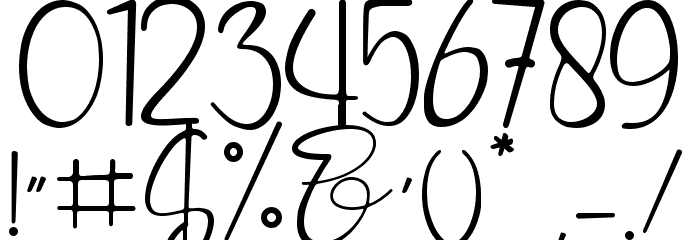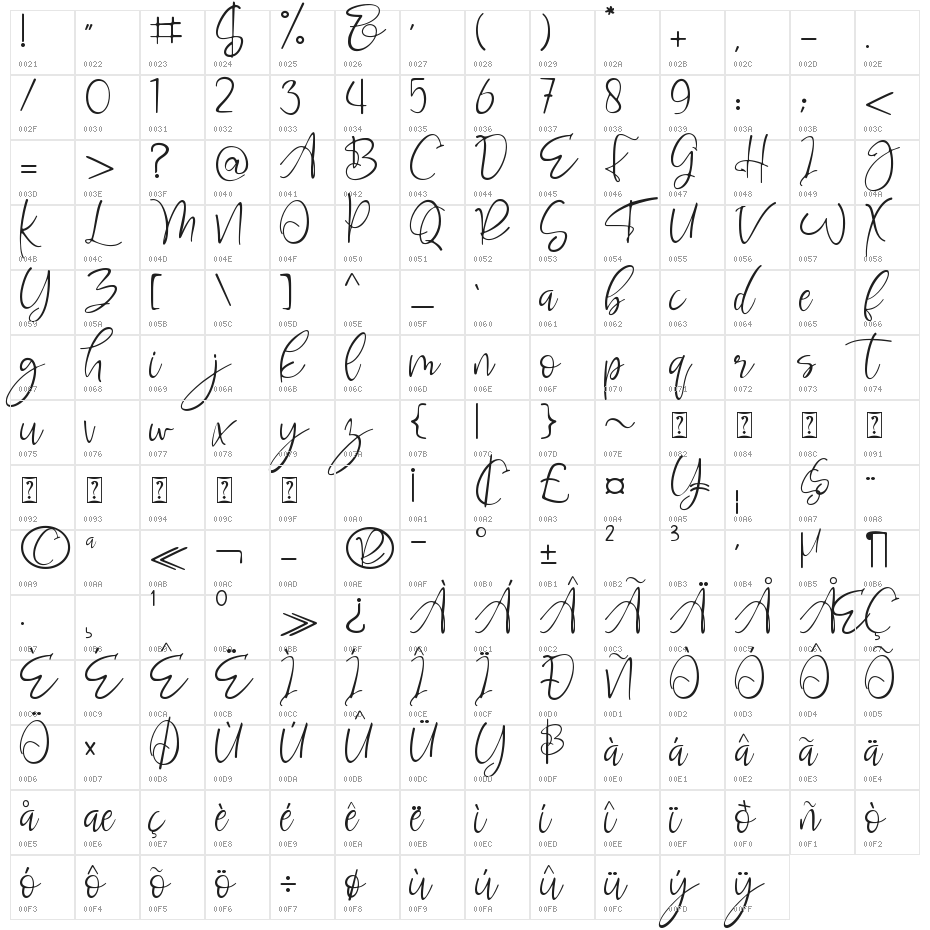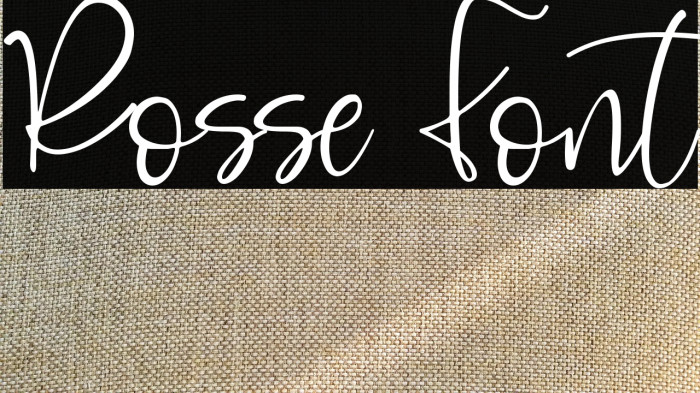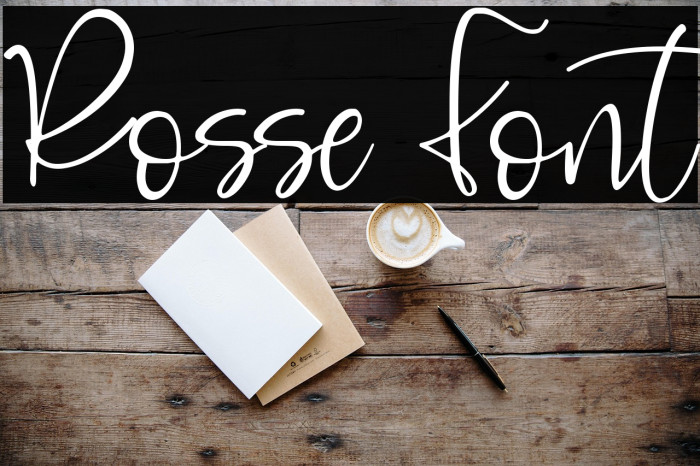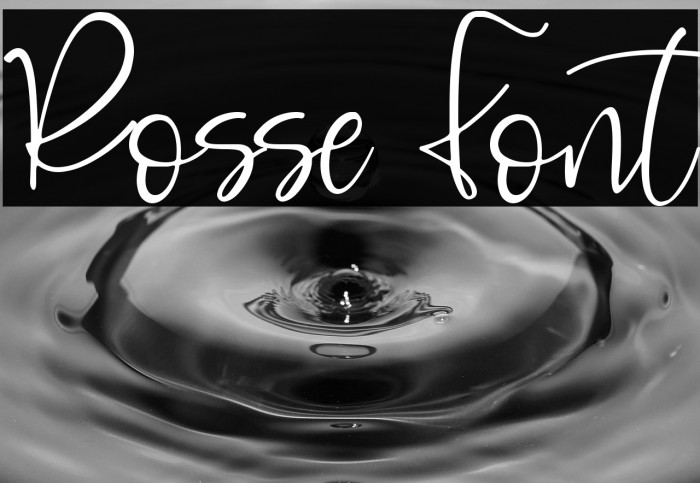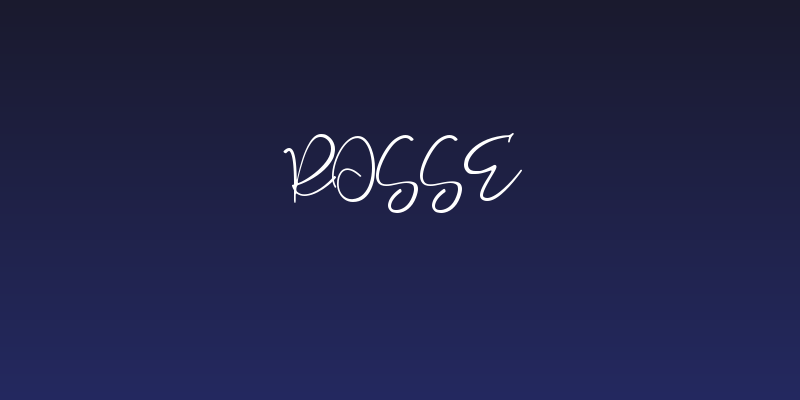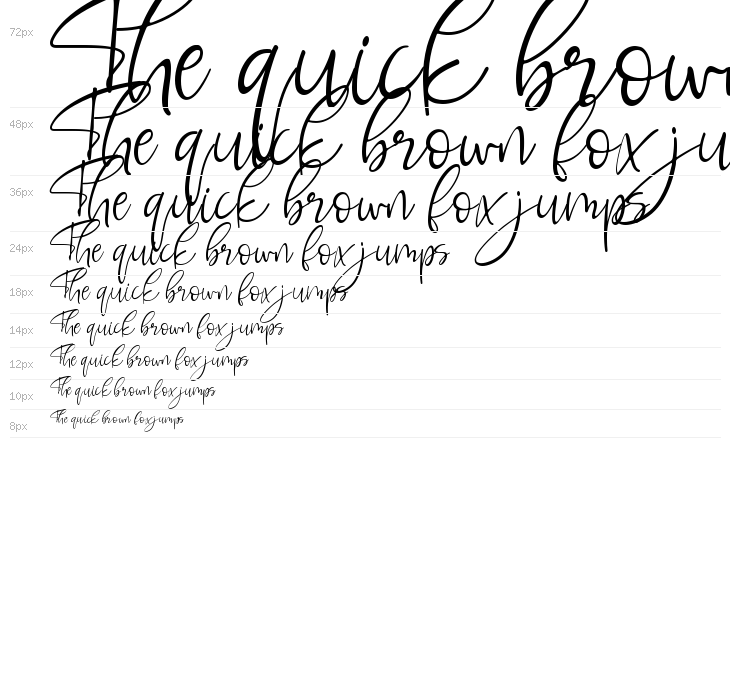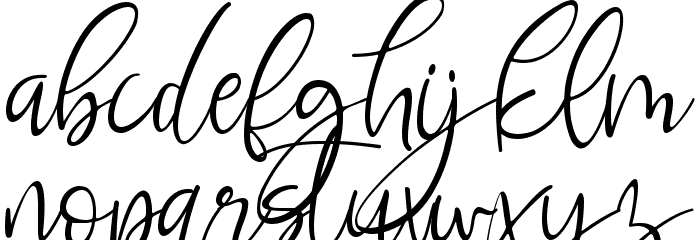
Rosse Font
Rosse Description
This font exudes a lively and expressive character, characterized by its flowing, cursive style. The letters are interconnected with elegant loops and swirls, creating a sense of movement and fluidity. The uppercase letters are bold and prominent, while the lowercase letters maintain a consistent, graceful flow. Numbers and special characters are designed to complement the overall aesthetic, with a playful yet sophisticated touch. The font's style is reminiscent of handwritten calligraphy, making it suitable for projects that require a personal and artistic flair.
Use CaseLogos, Invitations, Artistic projects
Proposed ProjectsIdeal for wedding invitations, greeting cards, personal branding, and artistic projects.